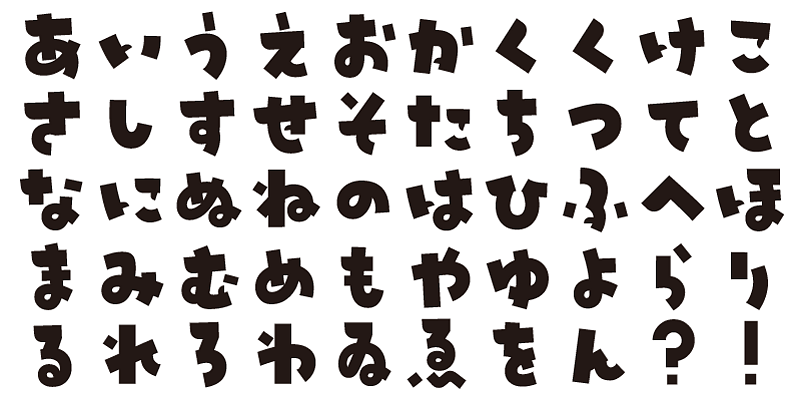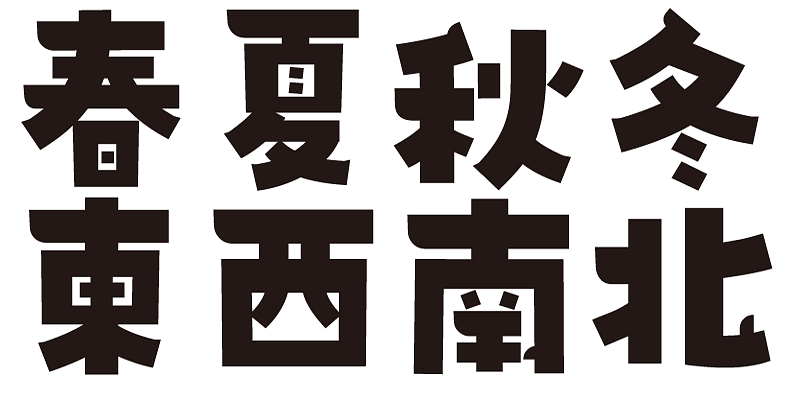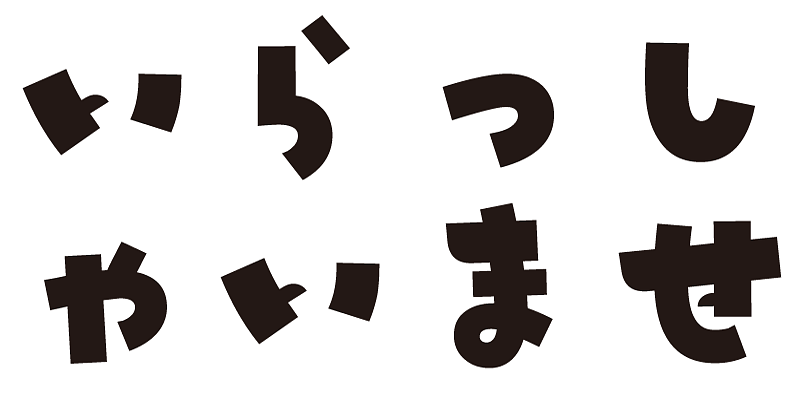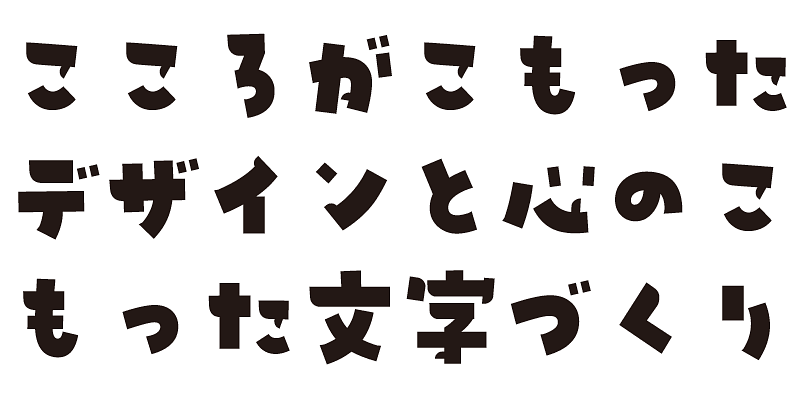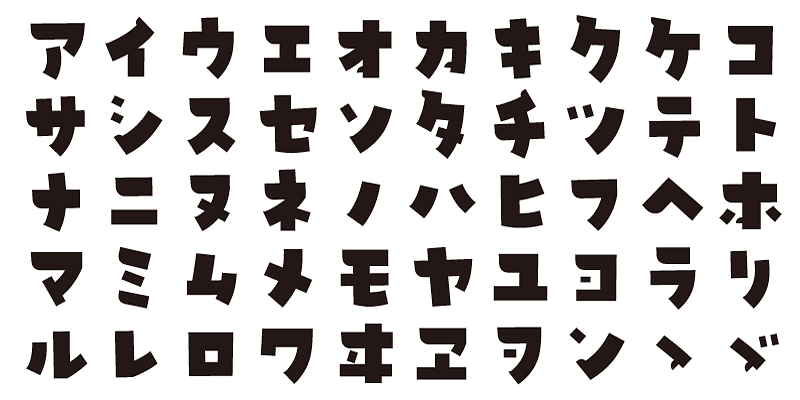
Spoiled and mischievous with a Dadaist bent. This typeface is visually strong, even as it retains a lightness.
Each font in this typeface family includes 1,000 kanji characters, as well as hiragana, katakana, alphanumeric characters, and punctuation marks.
We design typefaces with the hope that they will add underlying meaning to words expressed. We wish the user to feel good and experience comfort and joy when using these typefaces.